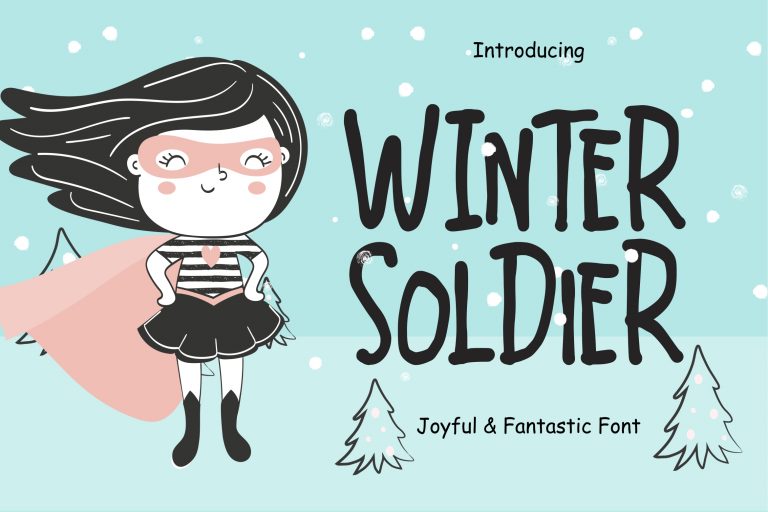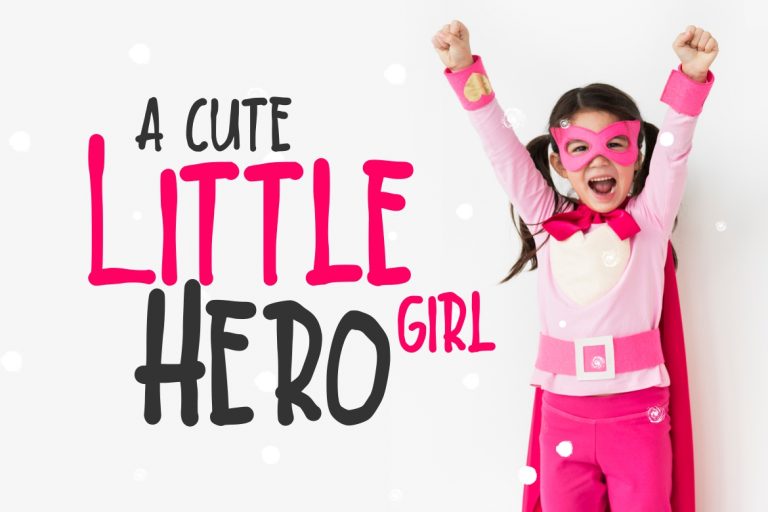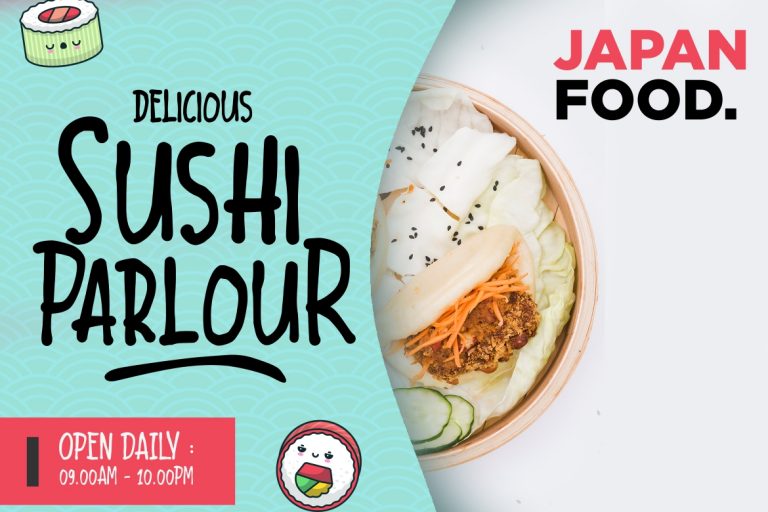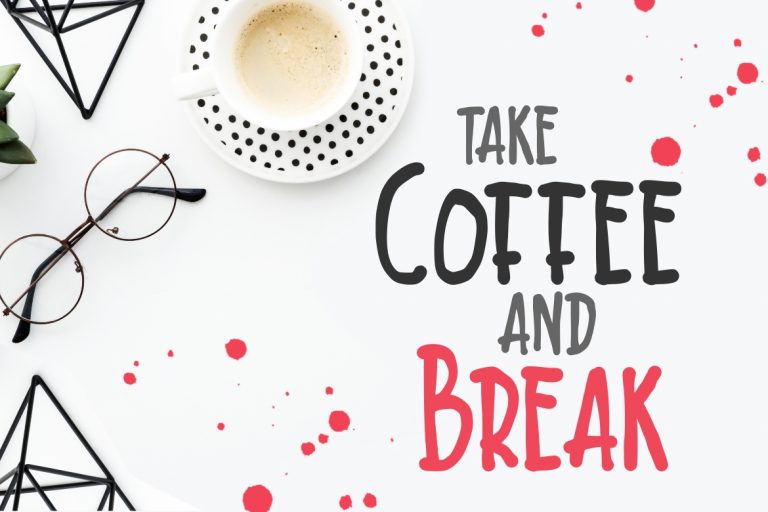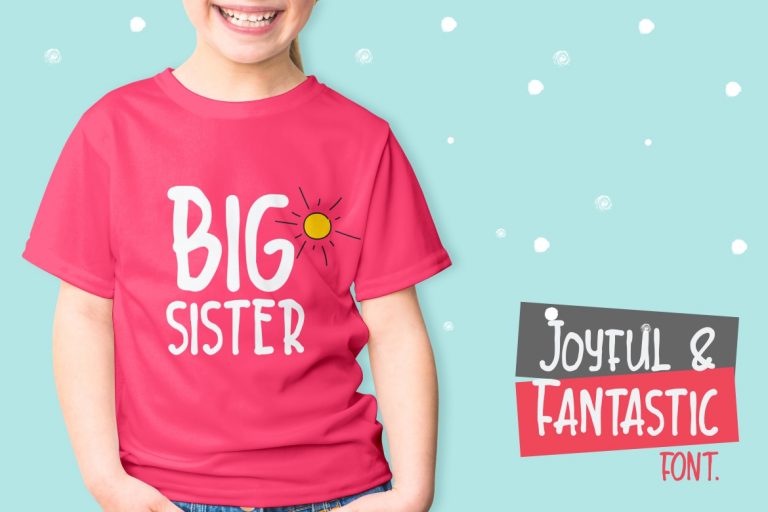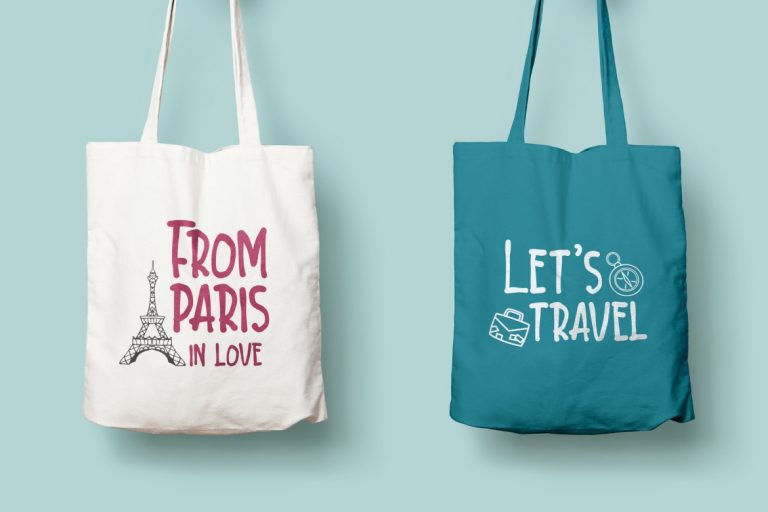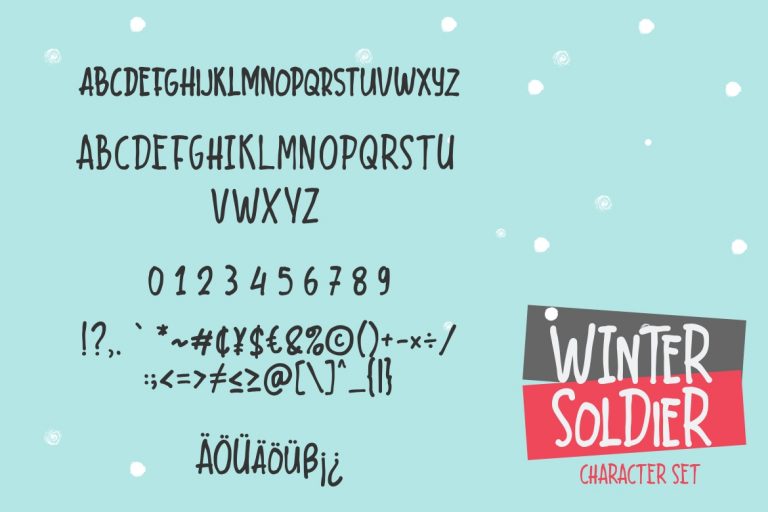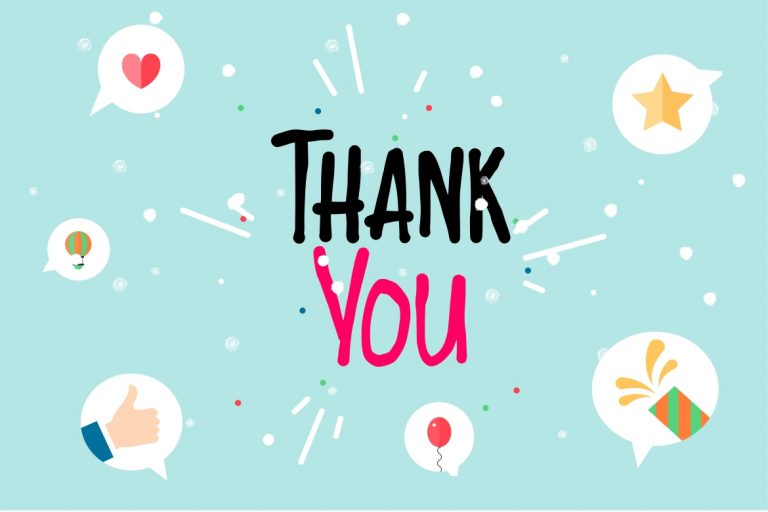
Winter Soldier Joyful & Fantastic
Winter Soldier is a joyful and fantastic fun children font which perfect for children and kindergarten occasion.
Winter Soldier is perfect for branding projects, logo, wedding designs, social media posts, advertisements, product packaging, product designs, label, photography, watermark, invitation, stationery and any projects that need handwriting taste.
- Fonts include multilingual support for; ä ö ü Ä Ö Ü ß ¿ ¡